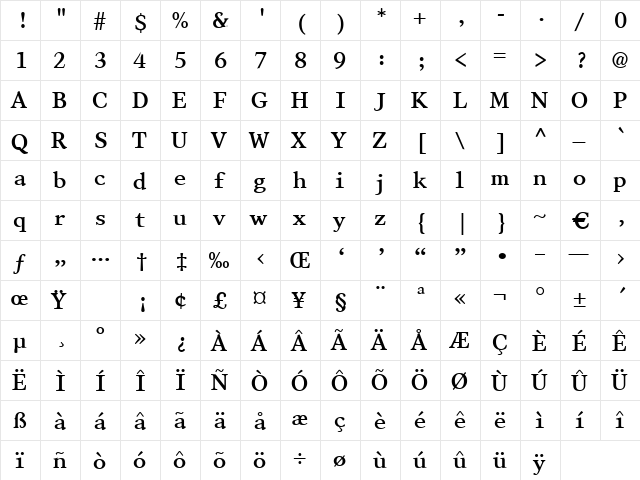
Cherbourg Regular
Design Context for Cherbourg Typeface
Cherbourg offers clean, dependable letterforms without strong stylistic allegiance, making it a practical choice for designers who need flexibility.
Pro Tip: Use Cherbourg in both headline and body roles to test its range before committing to a single application.